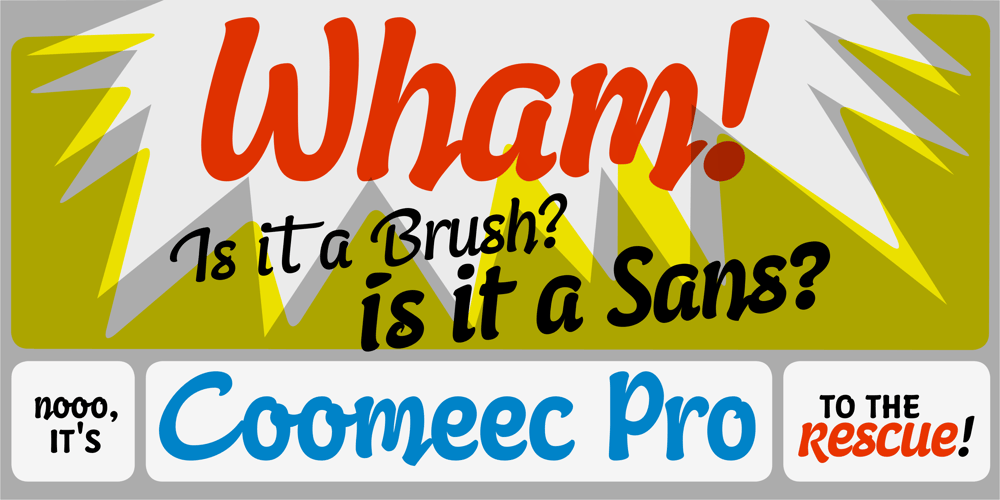
Coomeec
Coomeec font
Coomeec Font Family was designed by Andi A. W. Masry and published by Linotype. Coomeec contains 4 styles and family package options. Although Andi AW. Masry designed his Coomeec typeface with one eye on comic books, this is more than just another cartoon font. Even in our short profile of the font below, we’re sure you’ll find enough to be surprised by the calligraphic aesthetic and the wide range of potential uses of Coomeec.Typography had been one of Andy AW. Masry’s hobbies before he turned professional in 2008 and formed his own agency in Jakarta in Indonesia. The former construction engineer had already spent many hours of his leisure time in following his pastimes of designing, photography and Latin typography. Fascinated by the close interaction between text and image in comic books, one of his first projects was the development of his font Coomeecâ„¢. The condensed letters of Coomeec seem to have more in common with a calligraphic brush typeface than a more conventional cartoon font.With the characteristic line forms of a brush font, the not unextensive variations in line thickness and numerous small embellishments to the glyphs, Coomeec can be used to enhance your projects with animated effects. You can achieve this not just in the larger font sizes; the font is also very legible in small sizes thanks to its large x-height. There are certain unusual letter forms, such as that of lowercase ‘g’, ‘s’ and uppercase ‘Y’, that provide Coomeec with a touch of the exotic.As Coomeec has numerous character alternatives, you can use it not only to create diverse designs but also to ring the changes with the character of the text itself. There are variants for most lowercase letters, some of which exhibit only minor differences, such as the lack of a curlicue on the ‘b’, a modified downstroke on the ‘h’ and an elongated base for the ‘k’. In the case of other letters, such as the ‘q’ and the ‘r’, there are significant disparities between variants. The uppercase characters are also available in a lively swash style with significantly extended terminals. Among the range of characters of Coomeec are oldstyle and lining figures designed for proportional and tabular setting. All alternatives are available in the form of the corresponding OpenType versions.Coomeec comes in two weights; Regular and Bold, each with its Italic version. The form of the slightly inclined Italic characters is identical to that of their upright counterparts with the exception of the lowercase ‘f’, which has an ascender in its Italic version. As an OpenType Pro font, the glyphs available for Coomeec ensure that it can be used to set not only western European but also central European texts.Coomeec is not just at home when used to set headlines. The excellent legibility of this individual and vibrant typeface means that it’s also ideal for setting shorter texts. The various alternative letters provide the designer with the opportunity to vary the textual appearance, and to choose between creating a more formal or more light-hearted effect. Coomeec is not only available in an OpenType version but is also obtainable as a web font, so that you can employ its exotic features to good effect when creating internet pages.